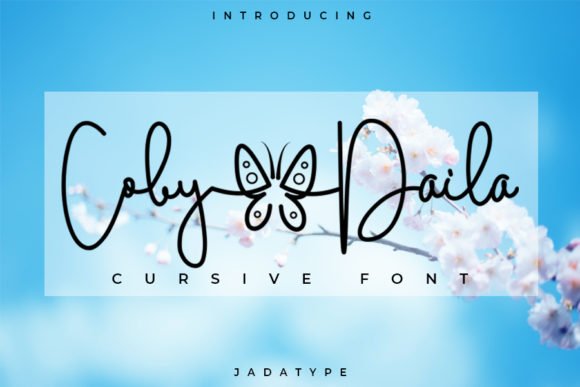
Introduction to Coby Daila Font
Coby Daila is a cursive font with an incredibly sweet style.
It is equipped with alternates such as butterflies and fallen leaves Get the font and make your product stand out.
Key Features of Coby Daila Font